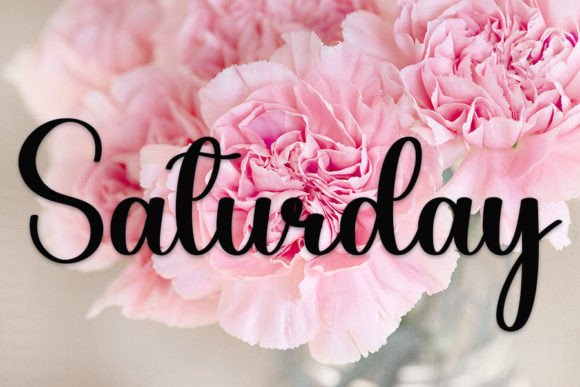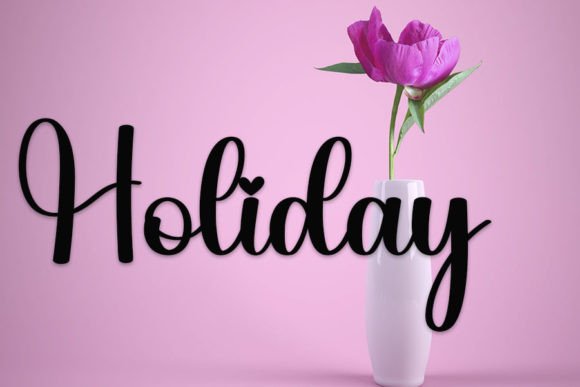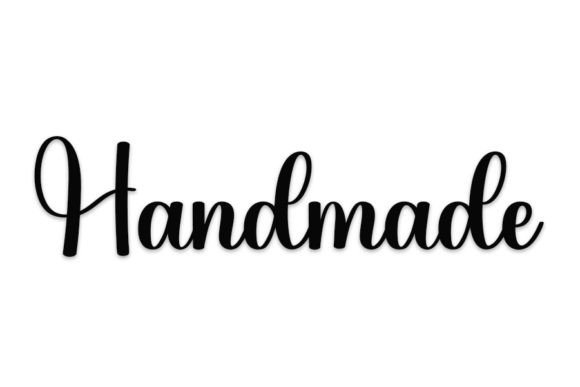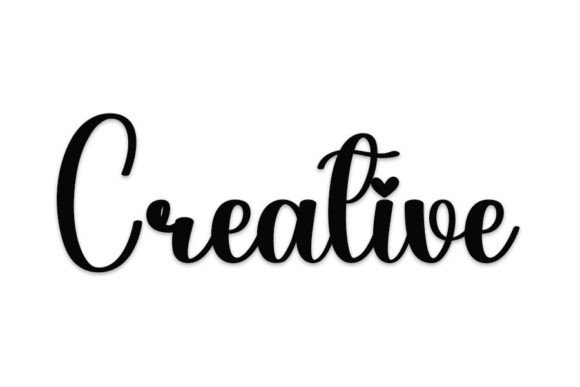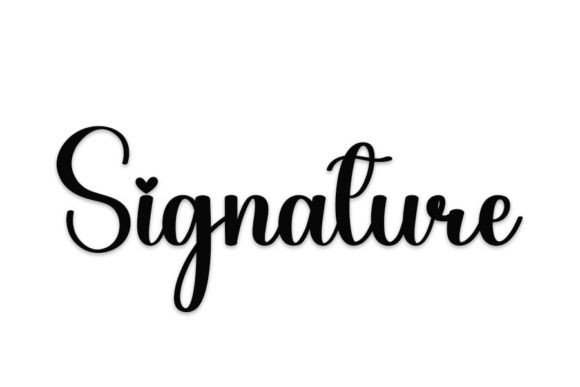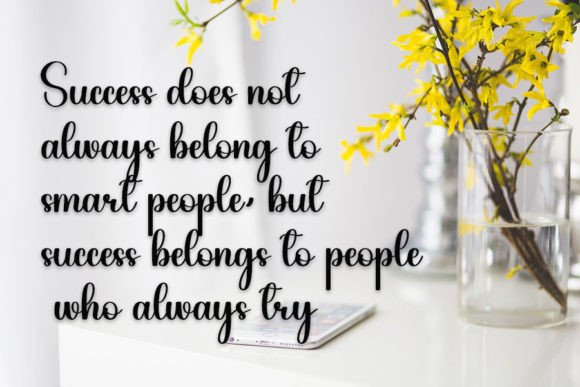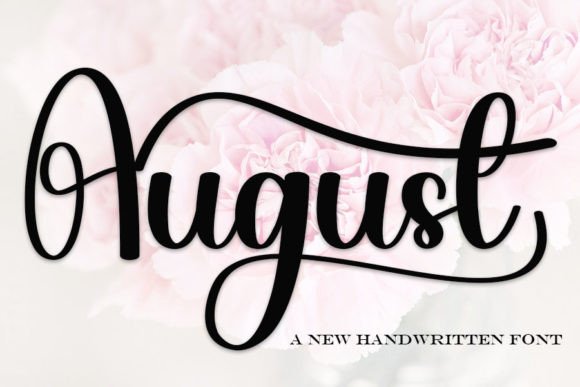
Introducing August Font: Elevate Your Designs with Elegance
Are you on the hunt for a font that exudes sophistication and style? Look no further than August Font, a stunning handwritten font that is sure to capture your heart. With its elegant touch and timeless appeal, August Font is the perfect addition to your design arsenal.
The Beauty of August Font
August Font is a masterclass in elegant typography. Its incredibly distinct and timeless style sets it apart from other fonts, making it an excellent choice for designers and crafters looking to create spectacular designs. The font’s beautiful, flowing lines and curves evoke a sense of refinement and luxury, perfect for projects that require a touch of sophistication.
What Makes August Font So Special?
So, what makes August Font so special? Here are just a few reasons why designers and crafters are falling in love with this gorgeous font:
- Elegant Touch: August Font boasts an elegant touch that is sure to elevate your designs. Its refined lines and curves create a sense of sophistication and luxury.
- Timeless Style: Unlike trendy fonts that quickly go out of style, August Font’s timeless appeal ensures that your designs will remain stylish for years to come.
- Distinctive Character: August Font’s incredibly distinct style sets it apart from other fonts, making it an excellent choice for designers looking to create unique and memorable designs.
- Versatility: August Font is perfect for a wide range of projects, from branding and advertising to packaging and digital design.
How to Use August Font in Your Designs
August Font is incredibly easy to use and can be applied to a wide range of design projects. Here are a few ideas to get you started:
- Branding and Logo Design: Use August Font to create a sophisticated and elegant brand identity that will help your business stand out.
- Digital Design: Add a touch of elegance to your website, social media graphics, or digital ads with August Font.
- Packaging Design: Use August Font to create beautiful and eye-catching packaging that will make your product stand out on store shelves.
- Stationery and Print Design: Add a touch of sophistication to your business cards, letterheads, and other print materials with August Font.
Tips for Getting the Most Out of August Font
To get the most out of August Font, here are a few tips to keep in mind:
- Experiment with Different Sizes and Colors: August Font looks great in a variety of sizes and colors, so don’t be afraid to experiment and find the perfect combination for your design.
- Pair it with Other Fonts: August Font pairs beautifully with other fonts, so try combining it with a bold or sans-serif font to create a unique and interesting design.
- Use it to Create Contrast: Use August Font to create contrast in your design by pairing it with images or other design elements.
August Font is a stunning handwritten font that is sure to elevate your designs. With its elegant touch, timeless style, and distinctive character, it’s the perfect addition to your design arsenal. Whether you’re a designer, crafter, or DIY enthusiast, August Font is a must-have font that will help you create spectacular designs that will leave a lasting impression.